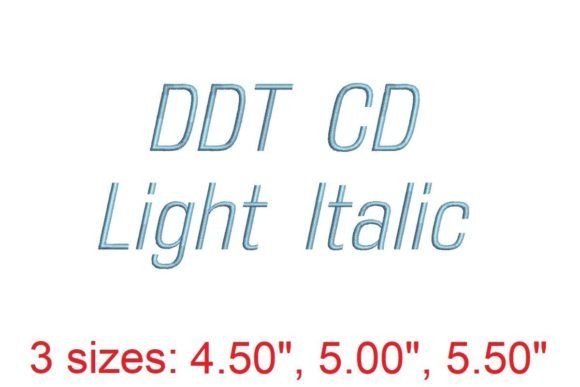
DDT CD LT IT Embroidery Font Review
The DDT CD LT IT Embroidery Font offers a versatile and elegant option for seasonal and holiday embroidery projects. As an experienced embroidery designer, I’ve tested this font across various materials and applications to determine its effectiveness for handmade gifts, home decor, and commercial use.
First Impressions: Seasonal Mood and Style
From the moment I viewed the DDT CD LT IT Embroidery Font, it exuded a refined and professional aesthetic. The lettering has a classic yet modern feel, making it ideal for both traditional and contemporary holiday designs. Its decorative style adds a touch of sophistication that can elevate any project, whether it’s a cozy winter sweater or a festive kitchen towel.
The font carries a warm, inviting tone that feels perfect for seasonal themes. It balances elegance with a subtle playfulness, which makes it suitable for both family-oriented and more upscale holiday items. The level of detail is impressive, with clean lines and consistent spacing that ensure a polished finish on any fabric.
Real-World Applications for Holiday Projects
As an Etsy seller and small shop product creator, I’ve found that the DDT CD LT IT Embroidery Font works exceptionally well in several holiday contexts. It’s a great choice for sweatshirt embroidery, tote bag design, and pillow cover embellishments. The font’s versatility allows it to be used in both minimalist and intricate layouts, depending on the desired effect.
For personalized gifts, this font provides a professional look that customers will appreciate. Whether you're creating embroidered patches for a craft fair or designing limited edition apparel, the DDT CD LT IT Embroidery Font delivers consistent results. It also pairs well with other seasonal elements like snowflakes, stars, and wreaths, making it a valuable addition to any holiday collection.
Performance in Commercial and Handmade Settings
In real selling situations, the DDT CD LT IT Embroidery Font proves to be reliable. It holds up well in gift bundles, Etsy listings, and social media previews, where visual appeal is key. The font’s clarity ensures that even small text remains legible, which is essential for product mockups and printable promotional graphics.
When used in commercial embroidery, the font maintains its quality across multiple washes and wear cycles. This reliability is crucial for small business owners who need to ensure their products meet customer expectations. The font also supports brand consistency, allowing for cohesive seasonal themes across different product types.
Where to Use With Caution
While the DDT CD LT IT Embroidery Font is highly adaptable, there are some scenarios where caution is advised. On small hoop sizes, the font may require adjustments to ensure all details are captured properly. Tiny lettering could become distorted if not carefully monitored during the digitizing process.
Items with thick towels or dark fabric may require additional stabilizer to prevent puckering or distortion. Metallic thread can sometimes highlight imperfections in the design, so testing is recommended before final production. Stretchy garments and curved caps may also require special attention to maintain the font’s integrity.
Impact on Seasonal Appeal and Customer Engagement
The DDT CD LT IT Embroidery Font significantly enhances the seasonal appeal of any product. Its clean, professional look increases the perceived value of handmade gifts and encourages repeat purchases. Customers are more likely to trust and engage with products that feature high-quality embroidery, especially during the busy holiday shopping season.
This font also improves the giftability of your creations. Whether it’s a personalized apron for a family member or a festive ornament for a friend, the DDT CD LT IT Embroidery Font adds a thoughtful and elegant touch that resonates emotionally with buyers.
Practical Tips for Embroidery Designers
To get the best results with the DDT CD LT IT Embroidery Font, start by testing thread colors on both light and dark fabrics. Check the stitch density to ensure the design is neither too sparse nor too dense, which can affect the final appearance. Confirm the hoop size needed for your project and use the appropriate stabilizer for the fabric type.
Creating realistic mockups helps visualize how the font will look on finished products. Always review small details after stitching to catch any issues early. Plan matching color palettes to maintain a cohesive aesthetic across your seasonal collection. Lastly, double-check Creative Fabrica product details and licensing terms before selling any finished products.
Conclusion: A Versatile Choice for Holiday Creations
The DDT CD LT IT Embroidery Font is a strong choice for anyone looking to enhance their seasonal and holiday embroidery projects. Its elegant design, professional finish, and adaptability make it a valuable asset for Etsy sellers, handmade gift makers, and small business owners. Whether you’re working on back-to-school items or festive home decor, this font offers the flexibility and quality needed to create standout products.